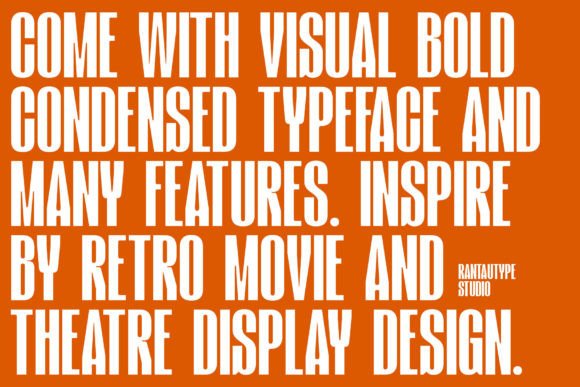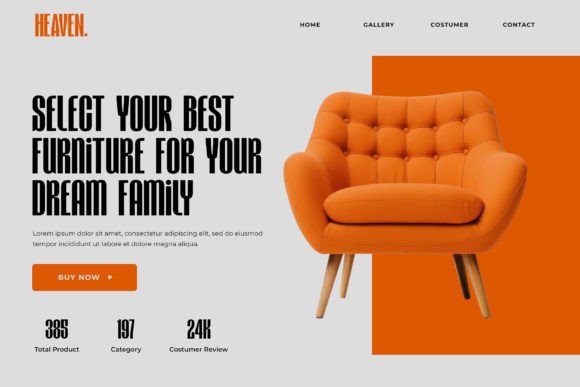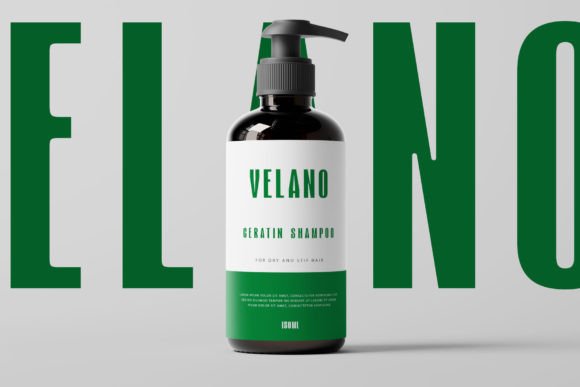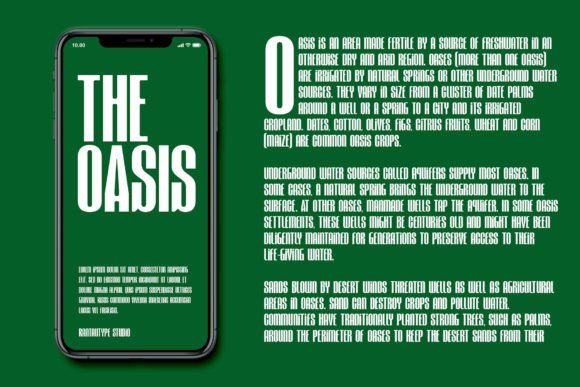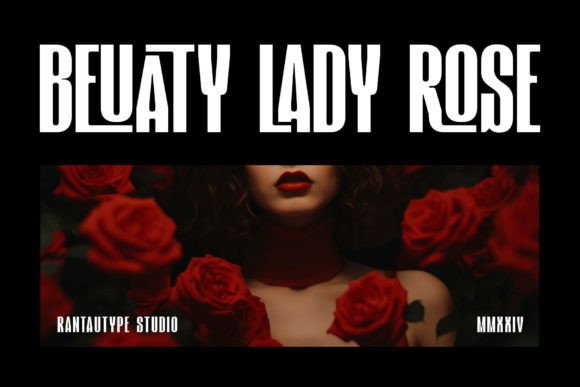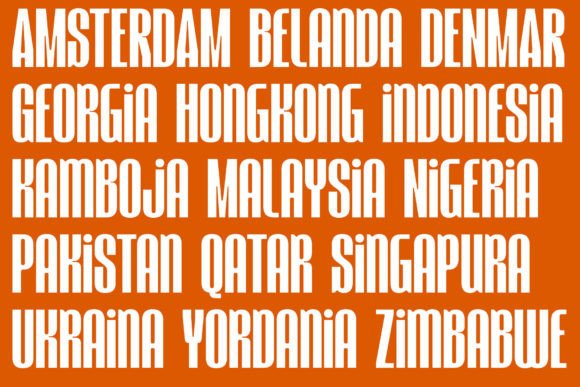
Introduction to Slancer Font
Have you ever stared at a beautiful poster or logo and wondered what font made it so captivating? For designers, finding the perfect font can be a game-changer. It’s like stumbling upon a hidden gem that elevates your entire creative project. And that’s exactly what Slancer Font offers – a bold, condensed visual typeface that’s sure to make your designs stand out.
Slancer Font is a beautifully crafted font that draws inspiration from retro movie and theater display designs. With its soft character form and fresh aesthetic, it’s the perfect choice for any creative endeavor. Whether you’re working on a chic lifestyle design, a branding project, or a product label, Slancer Font is a versatile and high-quality design resource that’s sure to impress.
What sets Slancer Font apart is its comprehensive package, which includes two styles (regular and italic), alternate characters, ligatures, and support for multilingual characters. And the best part? It’s available for free download, making it an accessible design resource for designers of all levels.
Key Features of Slancer Font
- High-quality, modern font design ideal for creative projects requiring a sophisticated look and feel.
- Extensive character set, including Latin, Cyrillic, and Greek alphabets, making it a valuable design resource for global projects.
Honest Review: Slancer Font
I recently had the chance to try out the Slancer Font, and I must say it’s a game-changer for my creative projects. The font’s unique design and high-quality details make it a great addition to any design resource collection.
- ⚠️ Limited font sizes and styles, which may not be ideal for complex design projects
- ⚠️ Not as versatile as some other fonts on the market, which may limit its use in certain designs
Overall, I’m impressed with the Slancer Font. It’s a great addition to any design resource collection, and its free download option makes it an excellent choice for designers on a budget. While it may have some limitations, I believe it’s a great option for many creative projects.
Getting the Most Out of Slancer Font
To get the most out of the Slancer Font, experiment with different font sizes, colors, and styles. You can also use it in combination with other design elements to create a unique and eye-catching design.
The Slancer Font is commonly used in logos, branding materials, and marketing materials. Its high-quality design and transparent background make it an ideal choice for creating professional-looking designs.